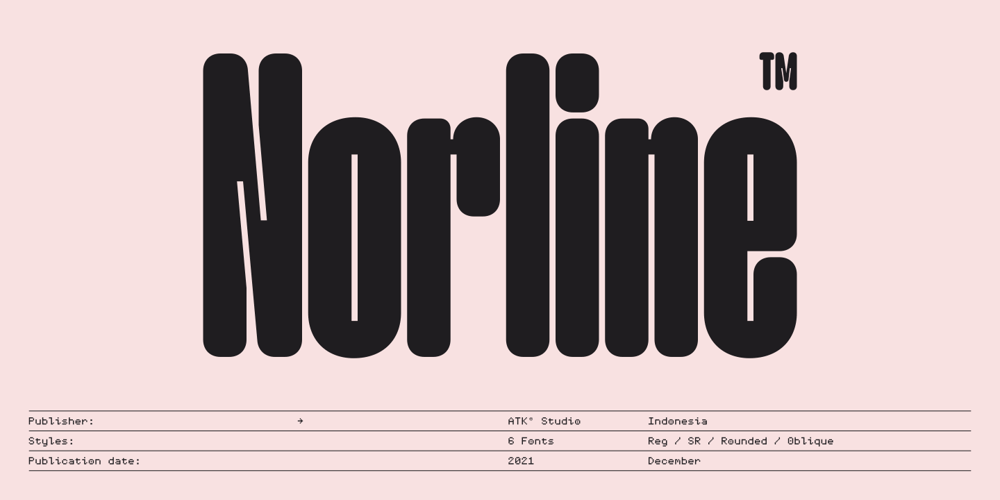
Norline Font Family was designed by Radinal Riki and published by ATK Studio. Norline contains 6 styles and family package options. Norline™ is a new bold sans-serif typeface created to be used for bold titles with 3 shapes into a display fonts way to make it legible for contemporary use. This type features a Latin Pro character set, covering multiple languages written with the Latin script.